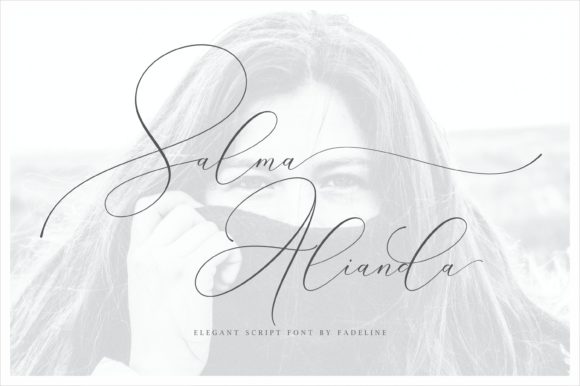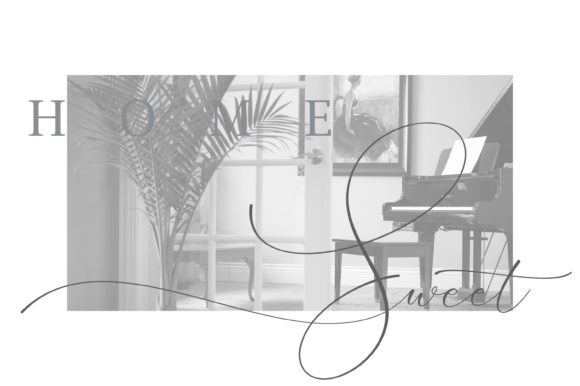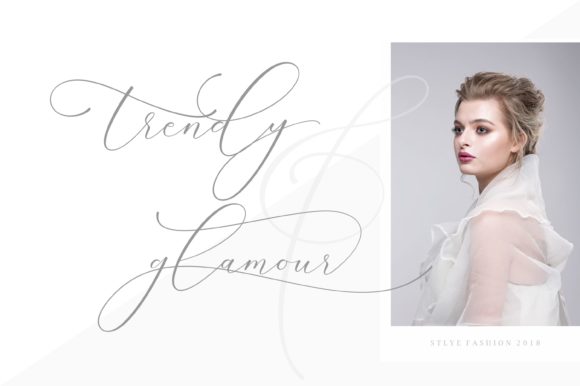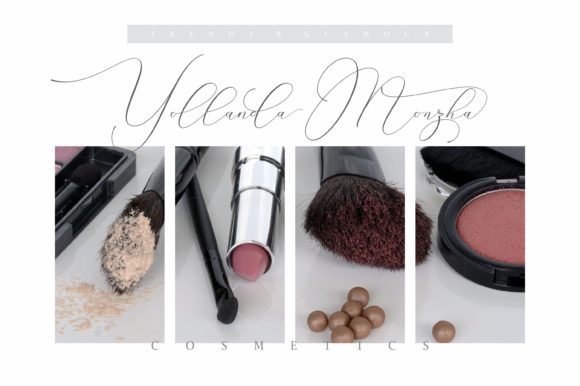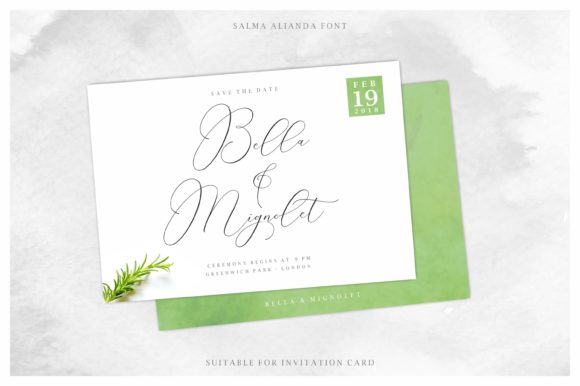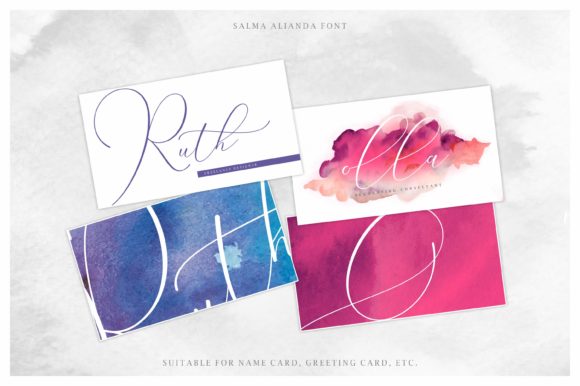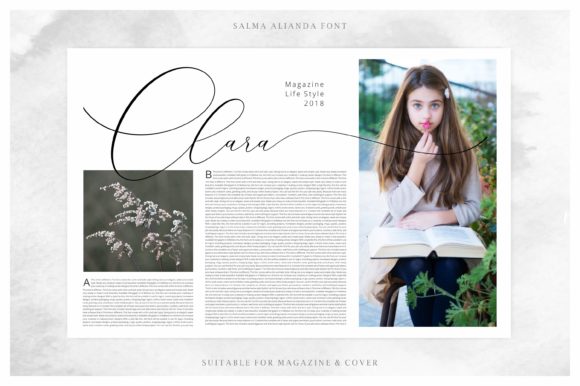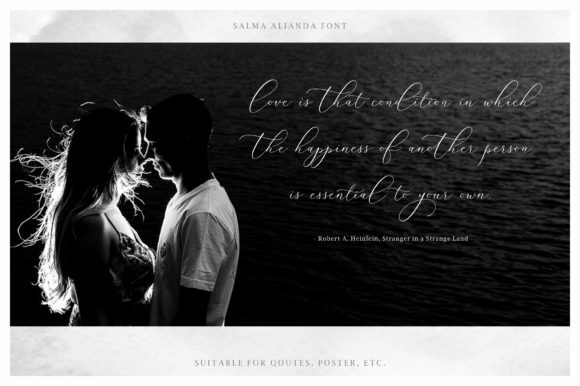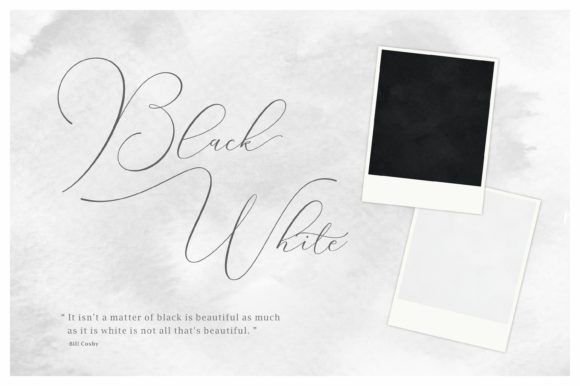
Salma Alianda Font
About Salma Alianda Font
Salma Alianda is a classic and timeless handwritten font with incredibly wonderful swashes. It will effortlessly add a romantic spark to any crafts idea.